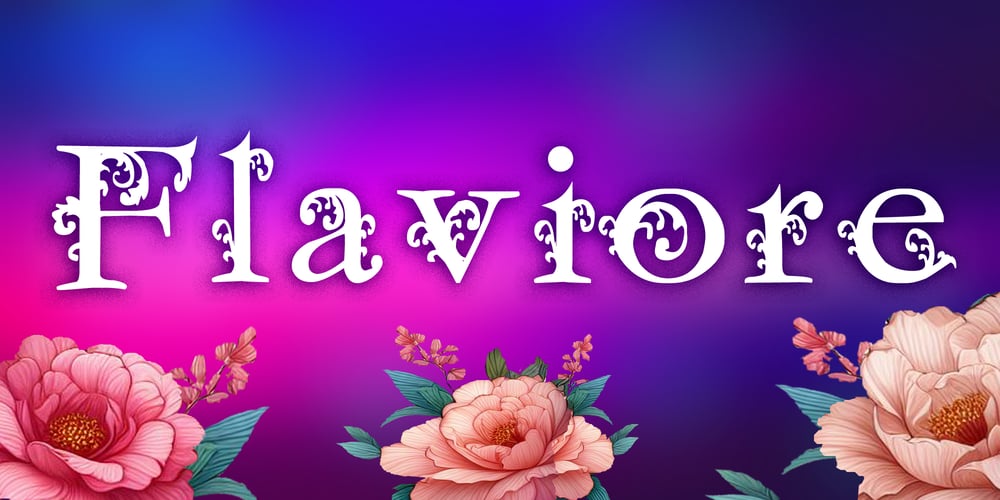
Flaviore Font Family was designed by bsmbang wisudyantoro and published by Beewest Studio. Flaviore contains 1 styles and family package options. Decorative Font, Engraved Font, alphabet clip art, digital font, alphabet clipart set, uppercase letters, green font– for background, scrapbooking, card design, or any graphic projects.